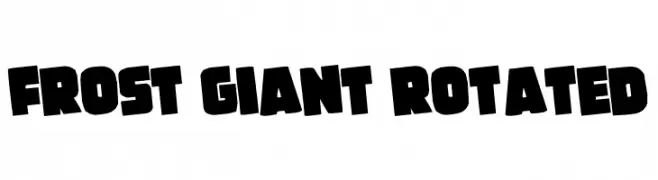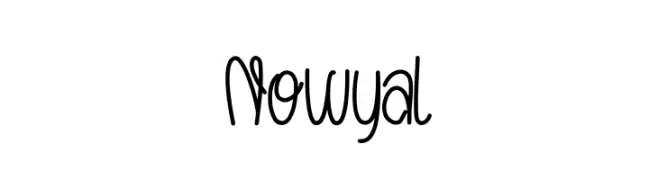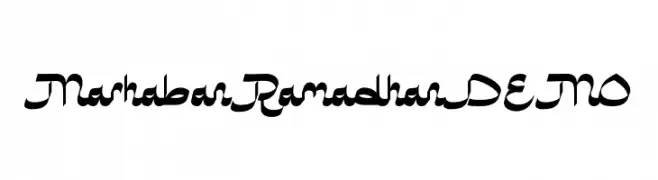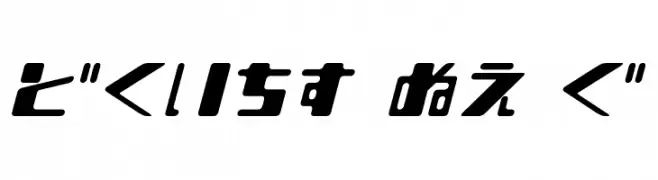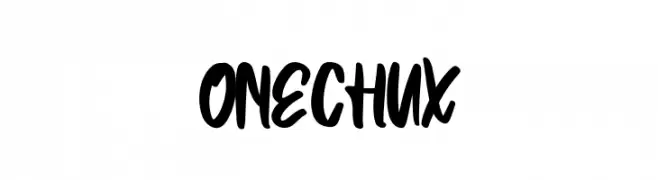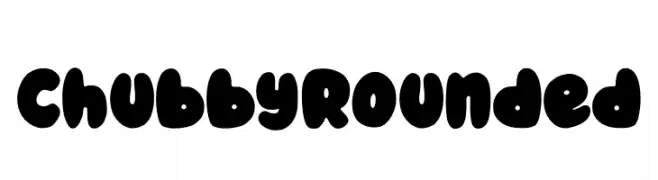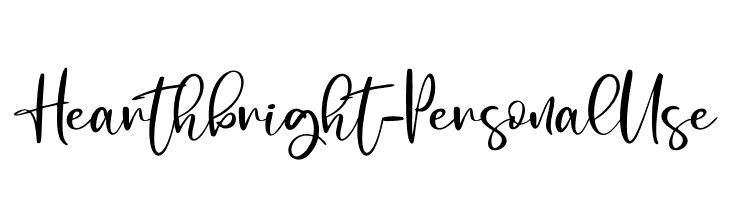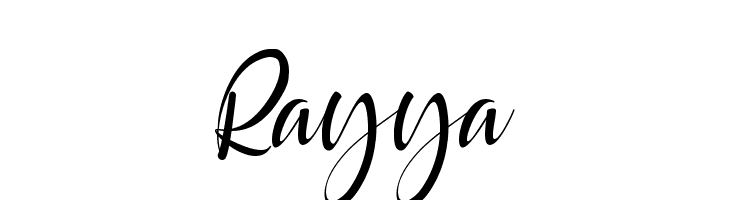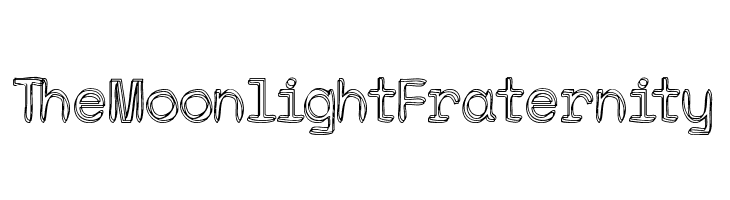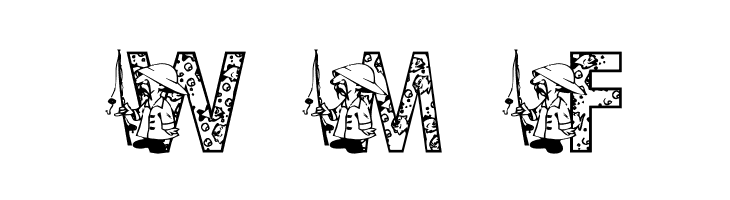
Bold, blocky font with a modern, angular design.
A playful, handwritten-style font with flowing, cursive-like strokes.
A bold, calligraphic font with expressive, flowing characters.
A bold, slanted font with thick strokes and a dynamic, modern style.
A bold, expressive handwritten font with smooth, flowing curves.
A bold, handwritten font with a playful and energetic style.
A dynamic handwritten font with expressive, flowing strokes and a casual, artistic style.
A playful, bold font with rounded, chubby characters perfect for fun designs.
A bold, playful handwritten font with a whimsical and casual style.
A bold, hand-drawn font with textured strokes and dynamic energy.